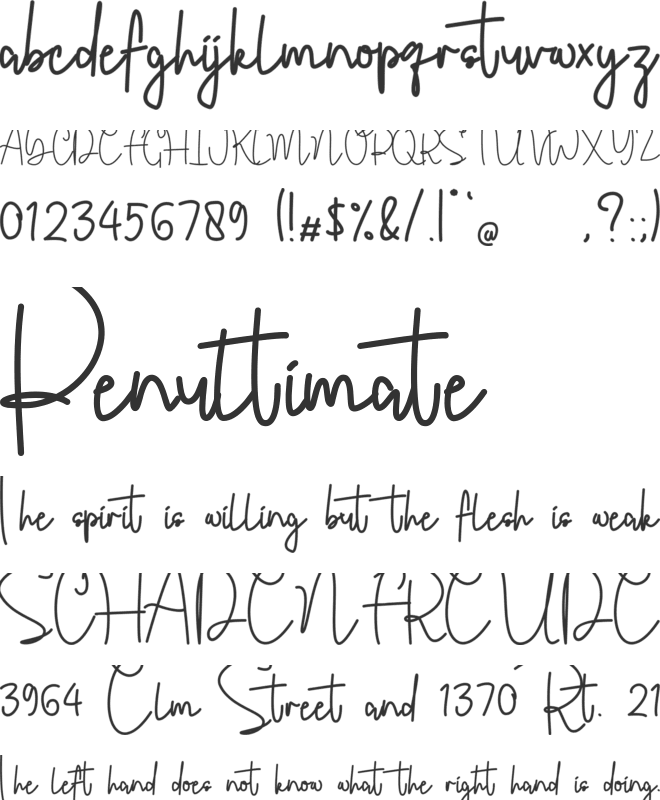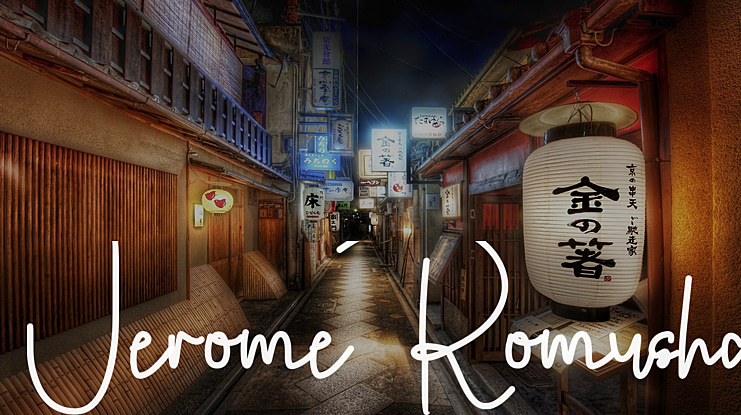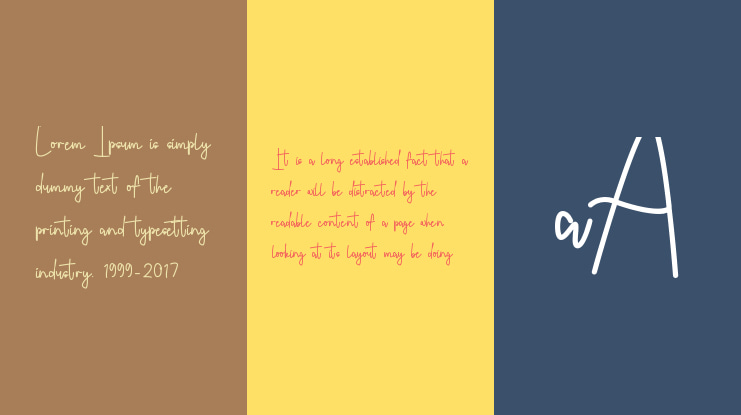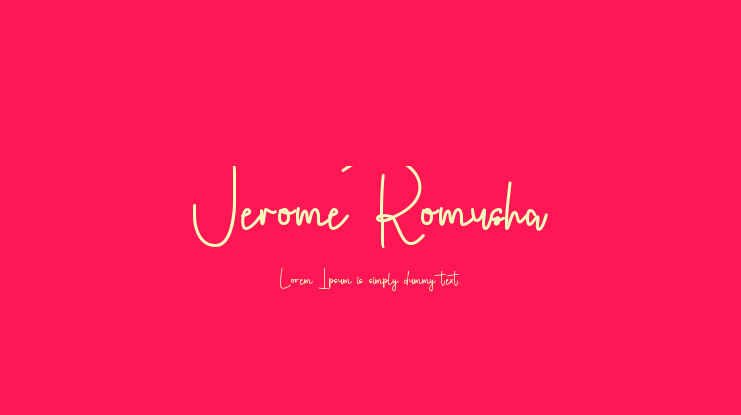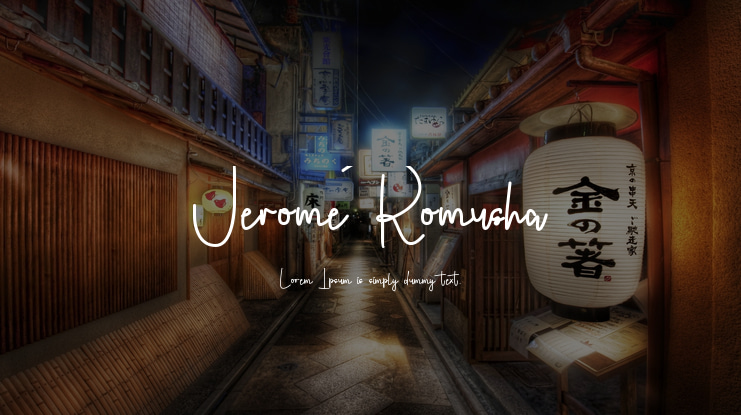
Jerome Romusha Font
Hello there! This font is perfect for various purposes such as wedding invitations, branding, book titles, videos, certain events and much more.